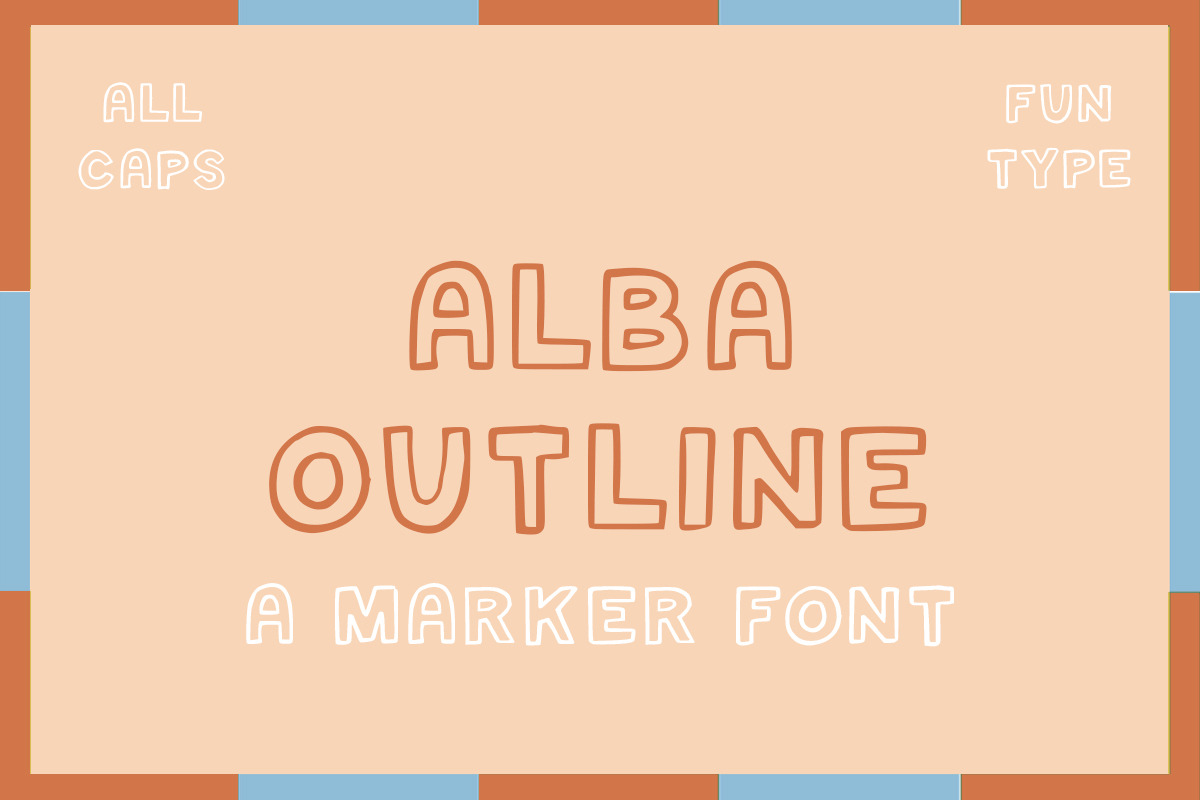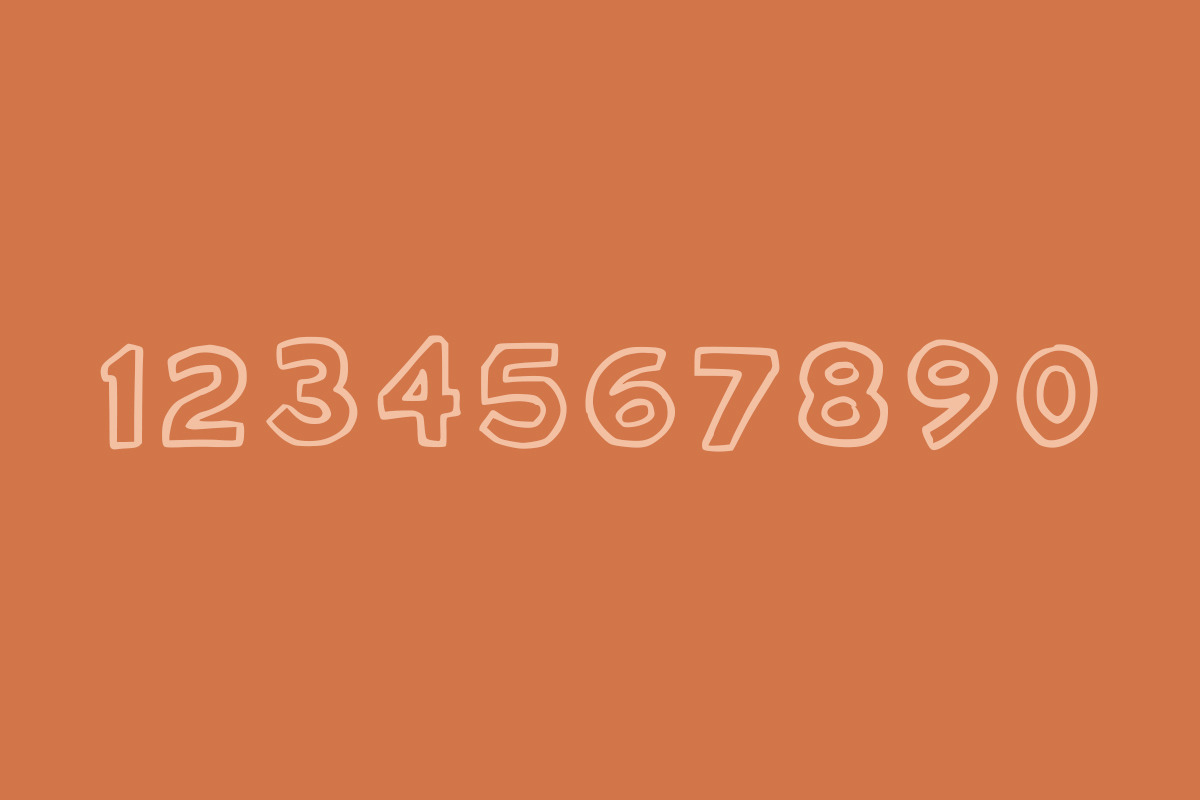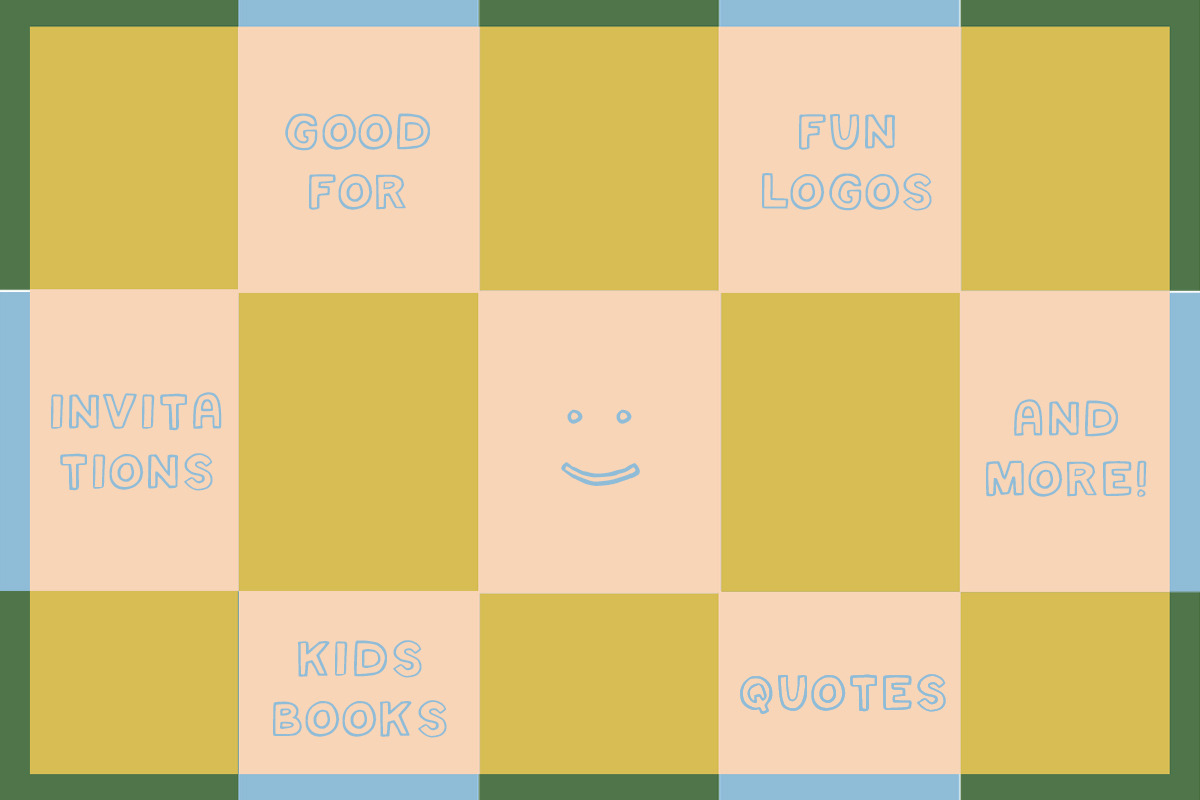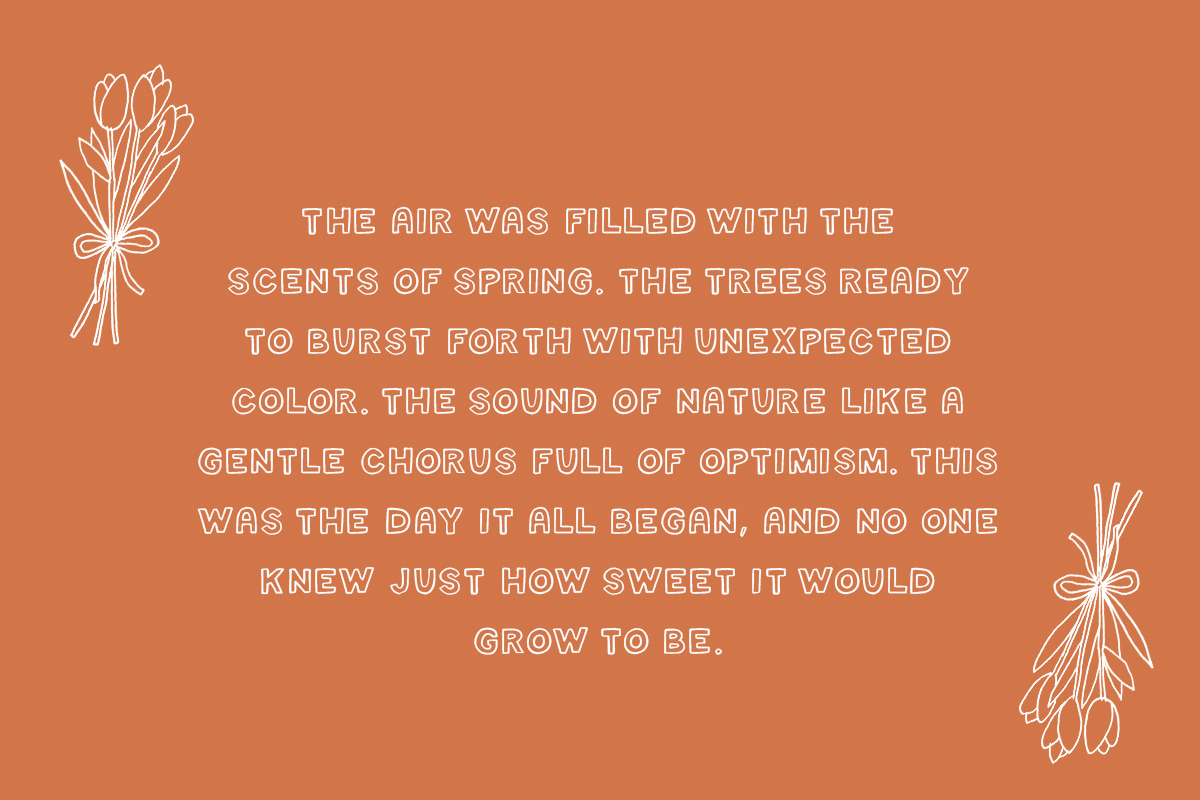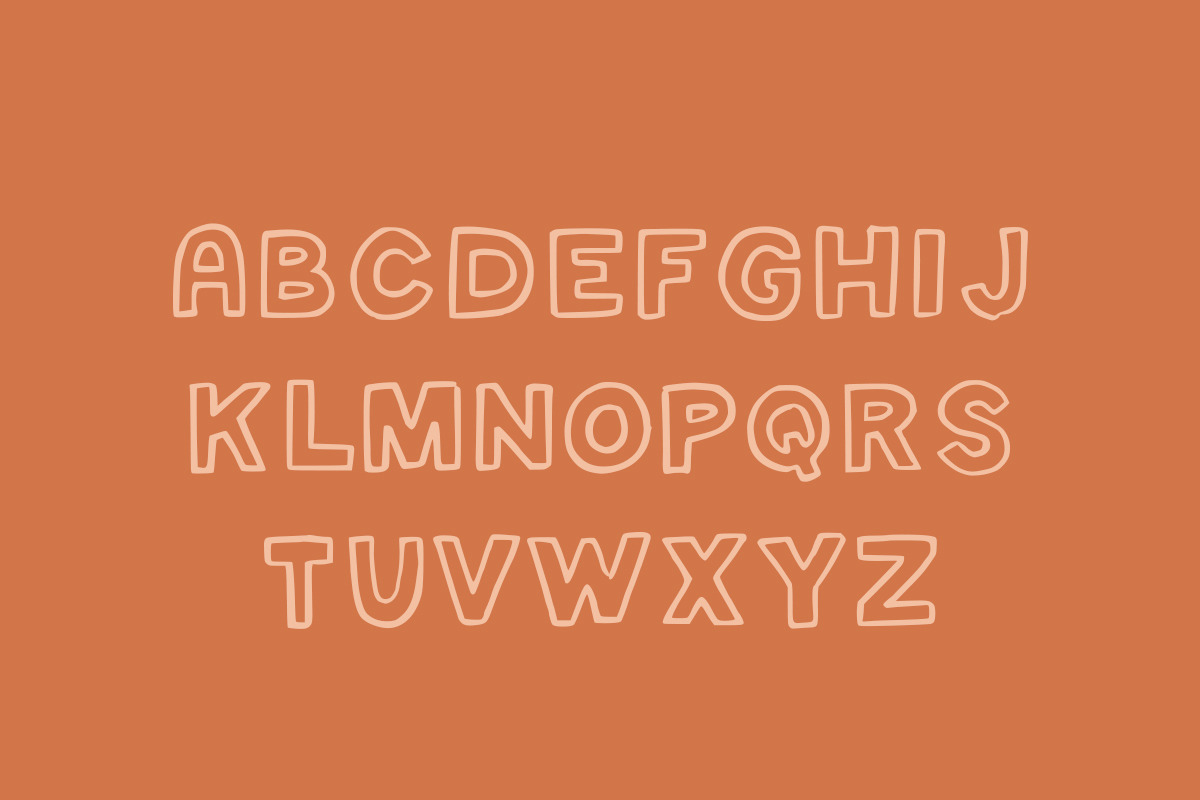
Alba Outline Marker Font
Alba Outline: A Marker Font in All Caps
Meet Alba, a fun outline marker font! For the fun type, type. Includes Capital Letters, Numbers, and Basic Punctuation. TTF, OTF, SVG, and WOFF files provided.